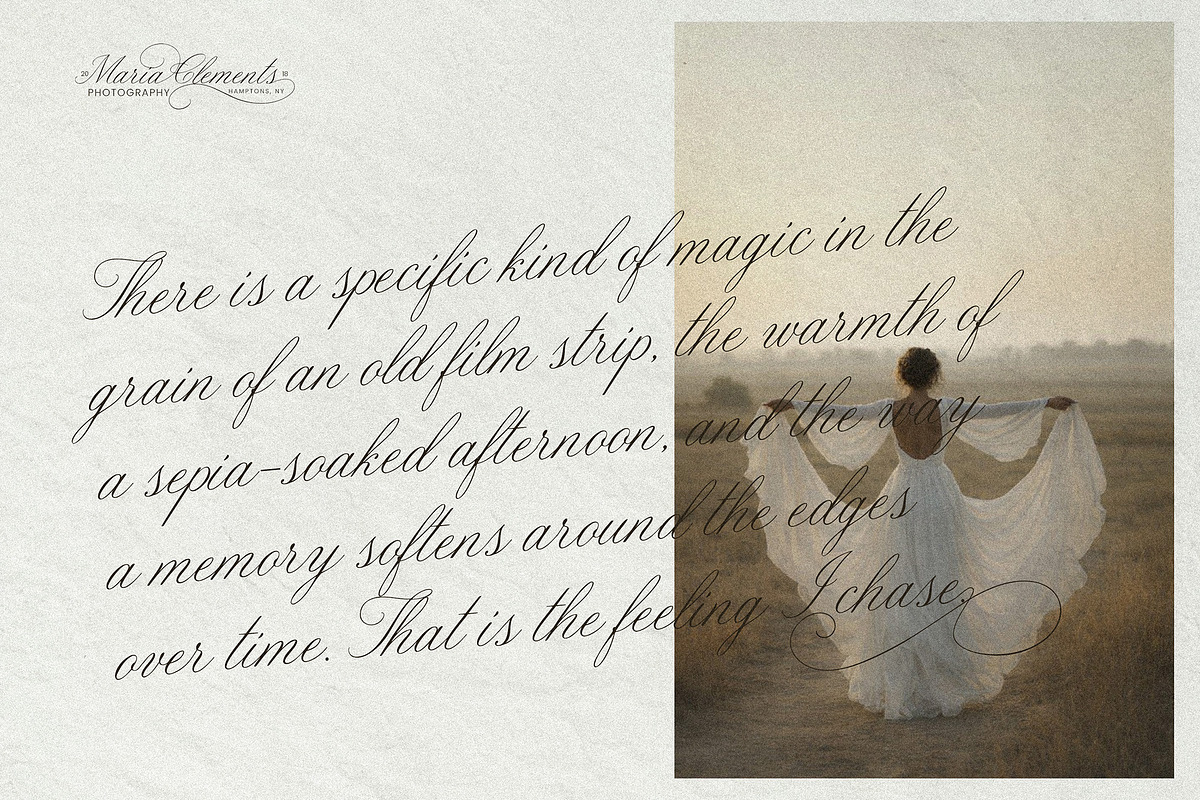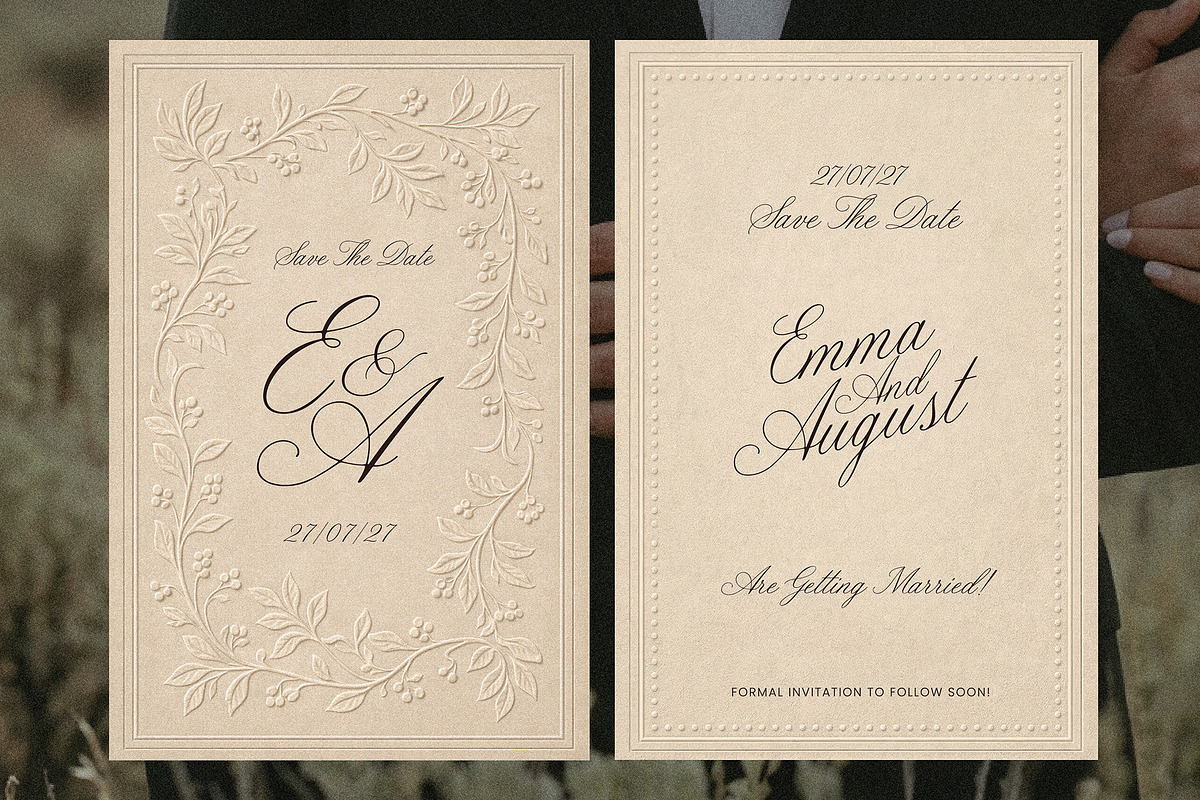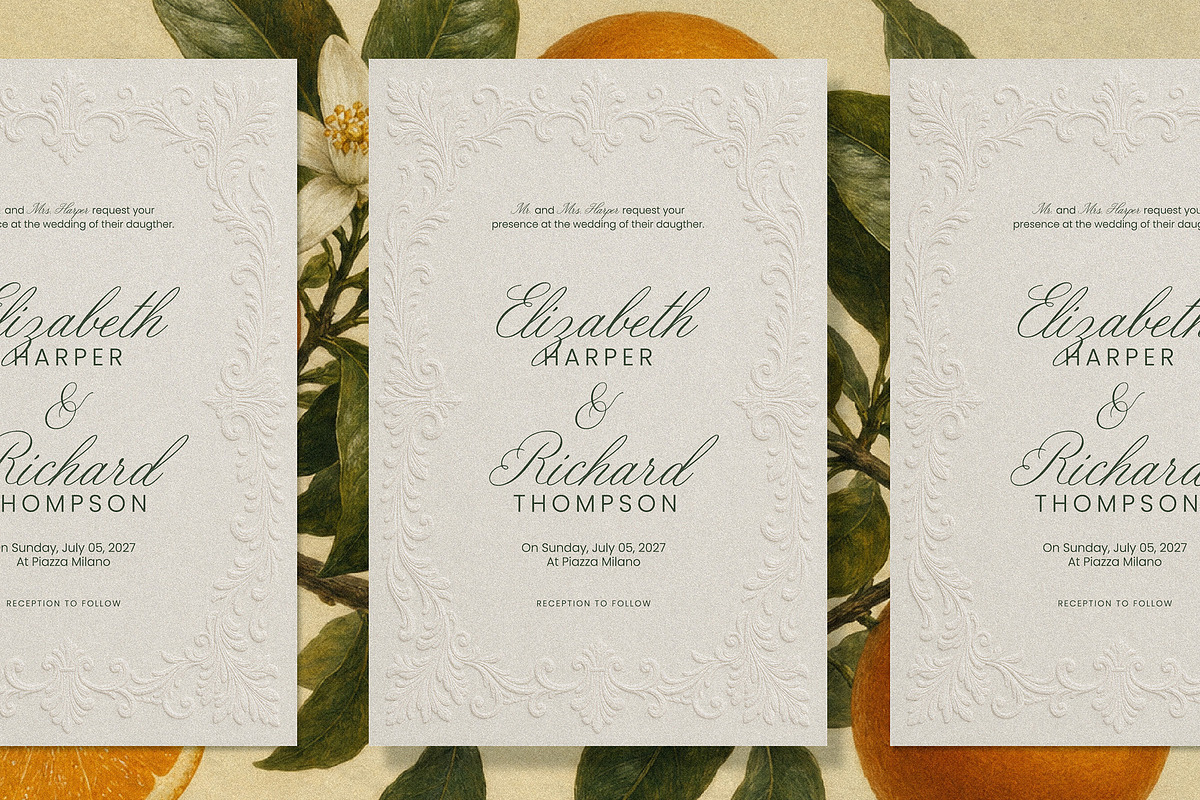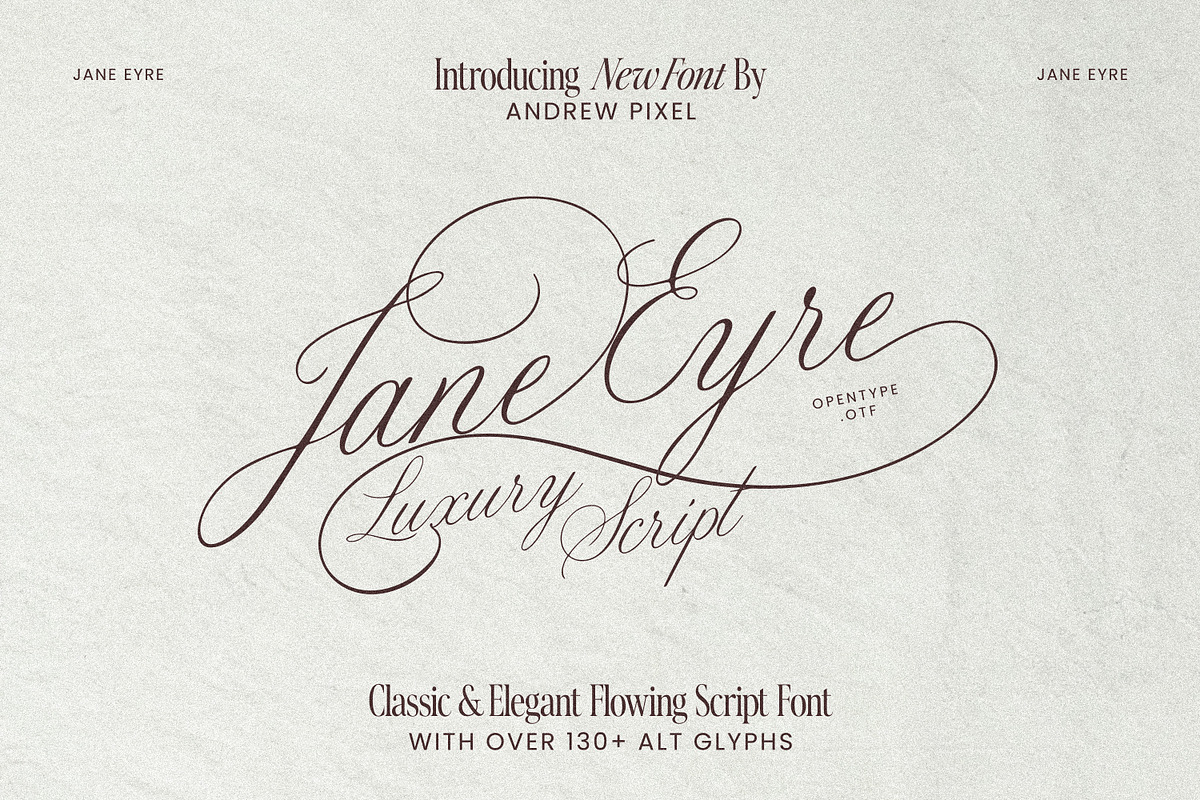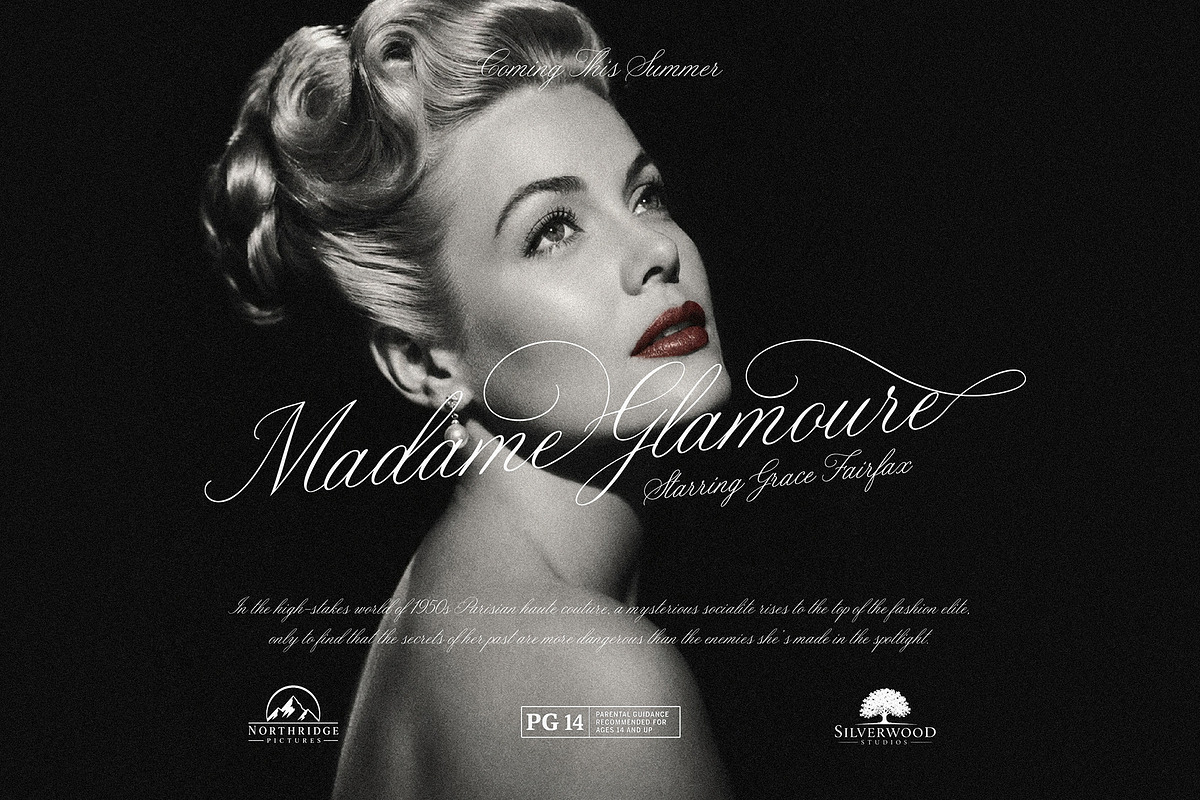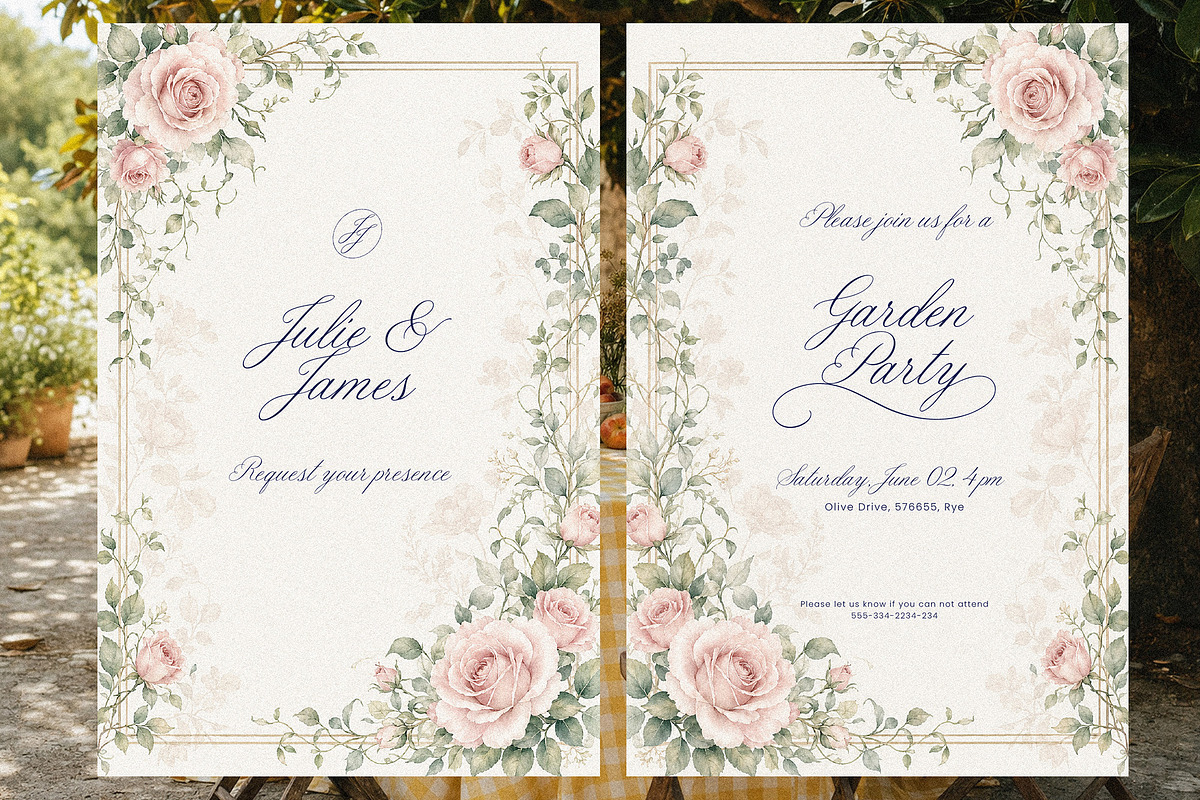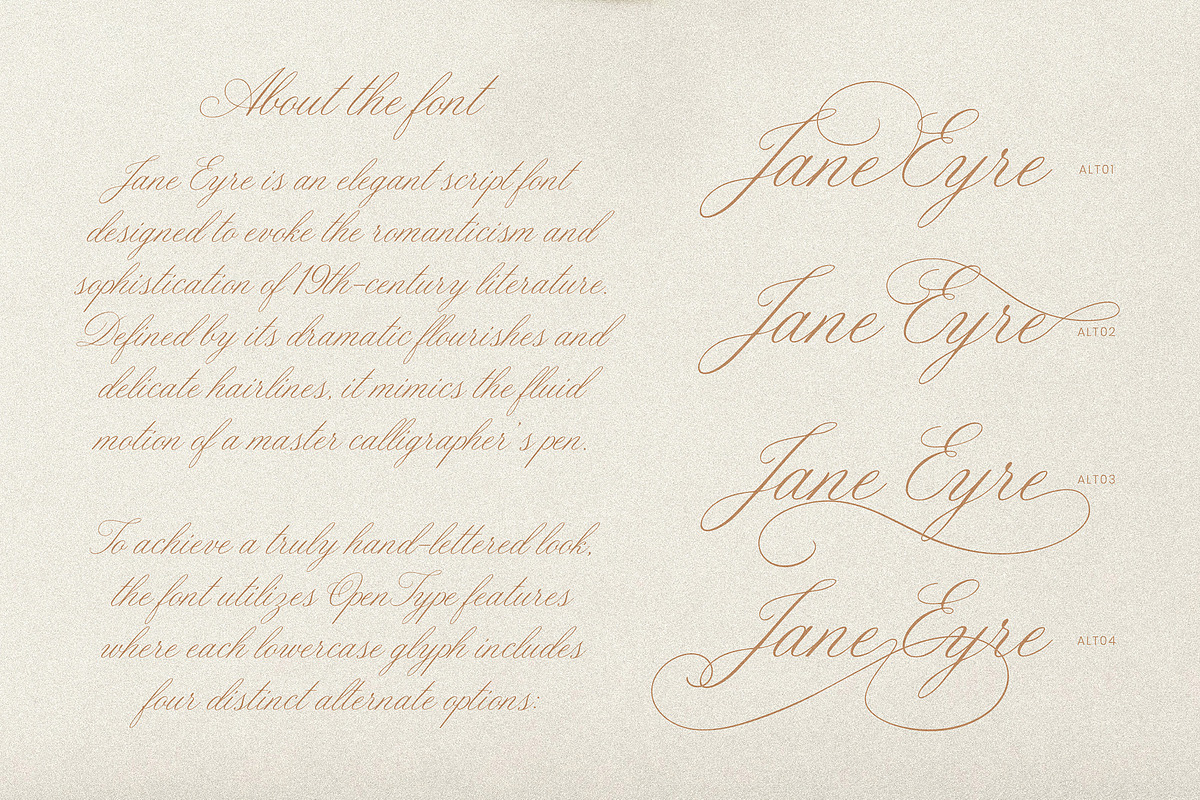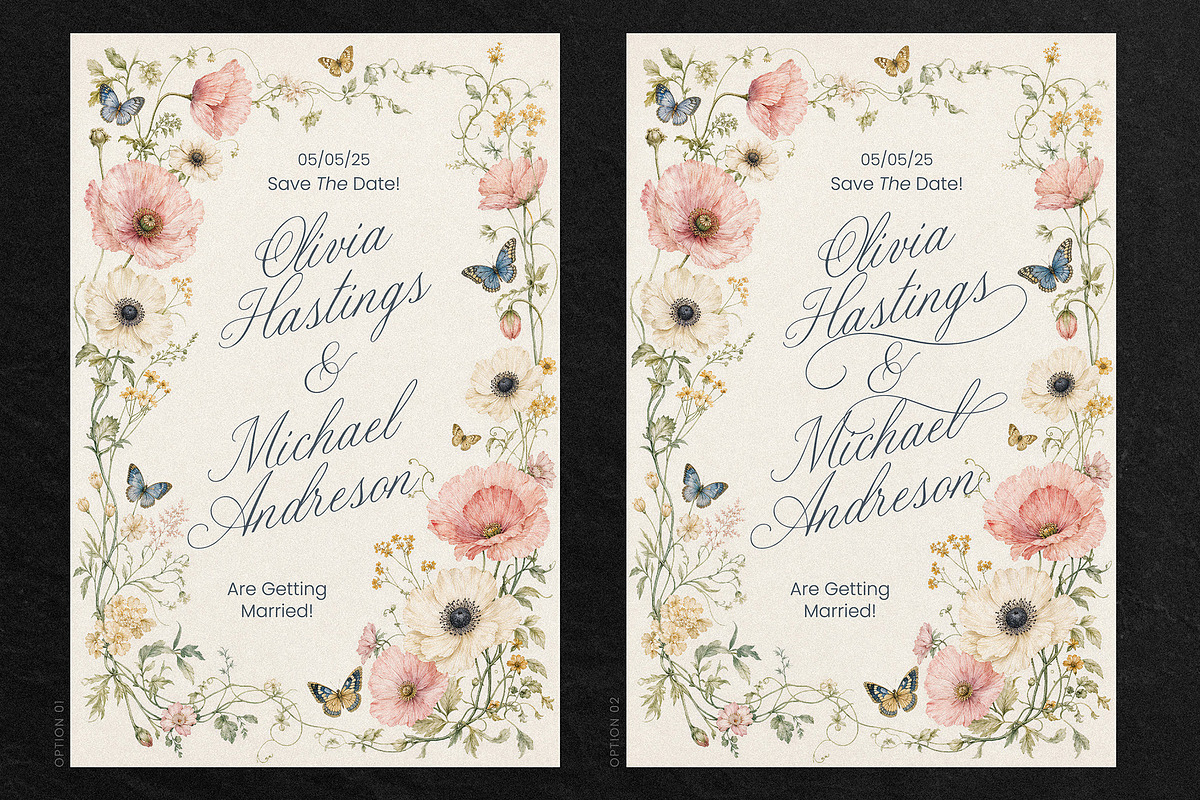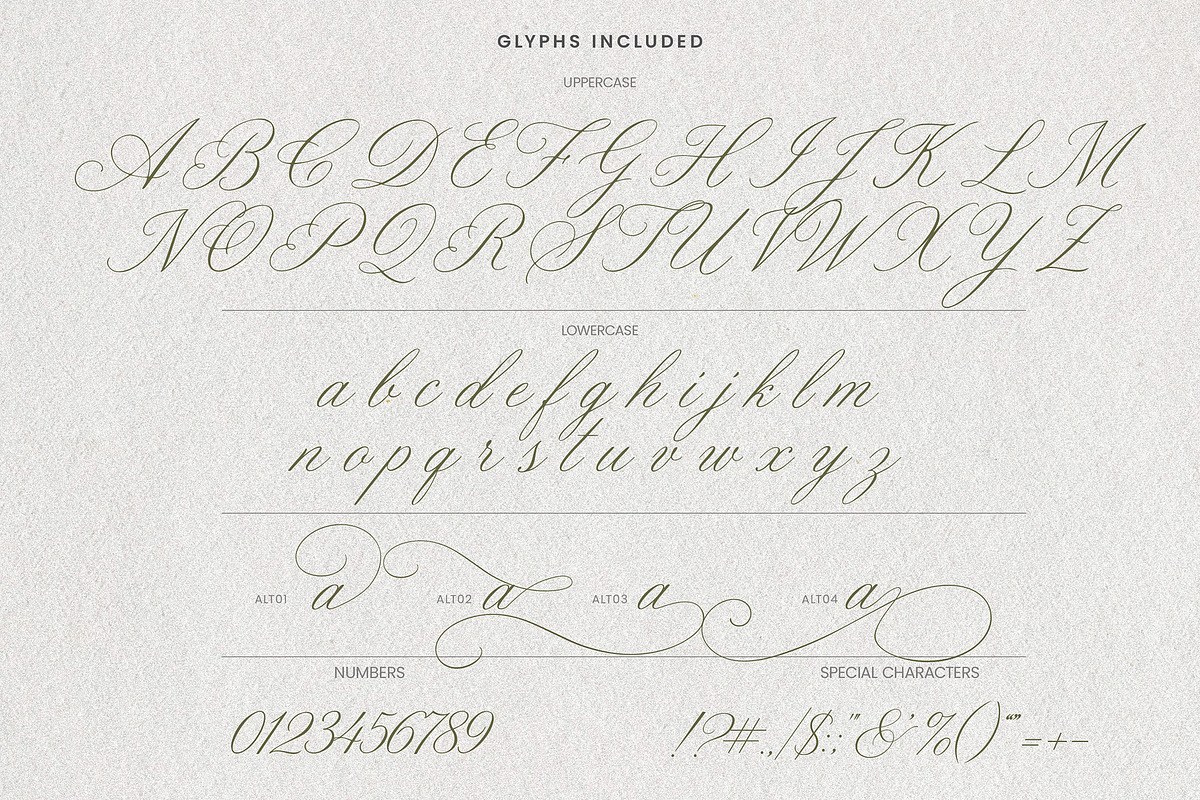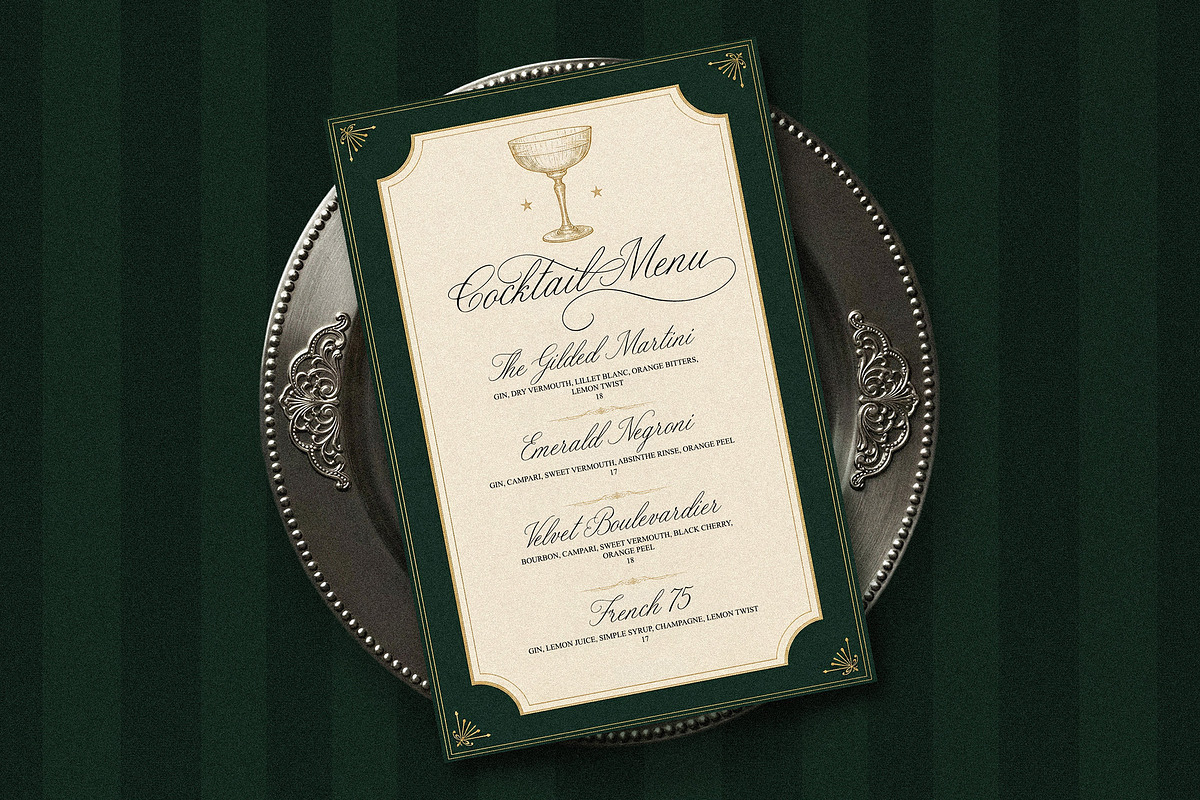
Jane Eyre - Luxury Script Font
Elevate your designs with the sophisticated charm of Jane Eyre, a luxury script font designed for those who appreciate the finer details. Inspired by classic calligraphy and romantic literature, this font features delicate, elongated strokes and a fluid rhythm that brings an air of high-end elegance to any project.
Whether you are designing for a high-fashion brand or a dream wedding, Jane Eyre offers the perfect balance of vintage grace and modern refinement.
130+ Alternate Glyphs: Includes beautiful swashes to give your text a custom, hand-lettered look.
Wedding Stationery
Luxury Branding
Classy Logo Design
Editorial Layouts
Photography Watermarks
Jane Eyre is a beautifully crafted luxury script font. The letterforms are fluid and sophisticated, with just the right balance between readability and decorative flair. I used it for a design project and it immediately elevated the overall aesthetic. The curves feel natural and the weight is consistent throughout. Easy to implement, great file quality. Highly recommend for anyone working on premium branding, invitations, or editorial design.